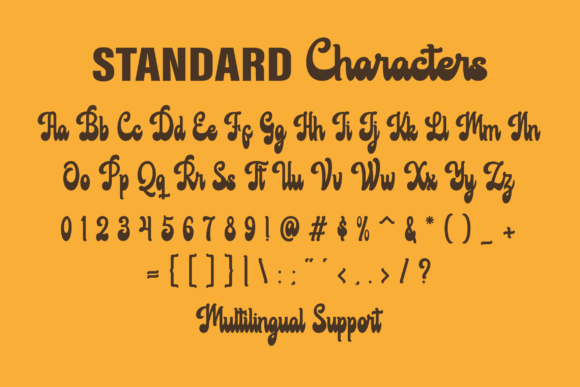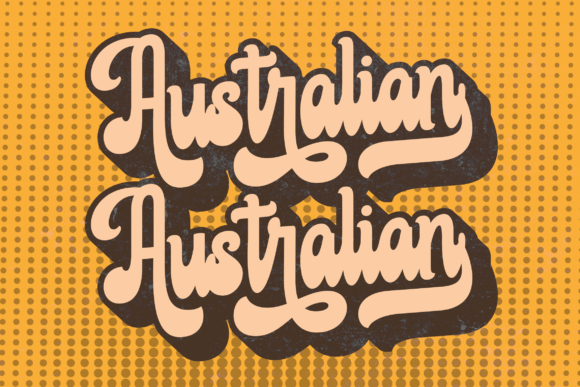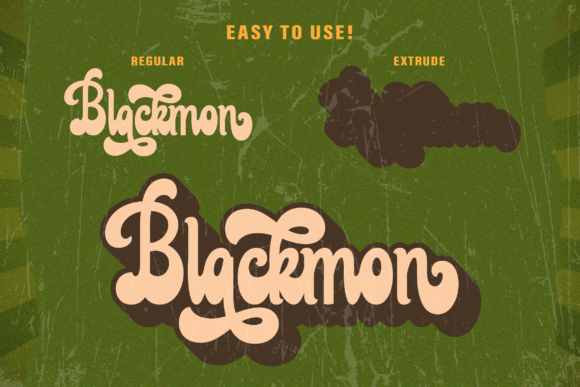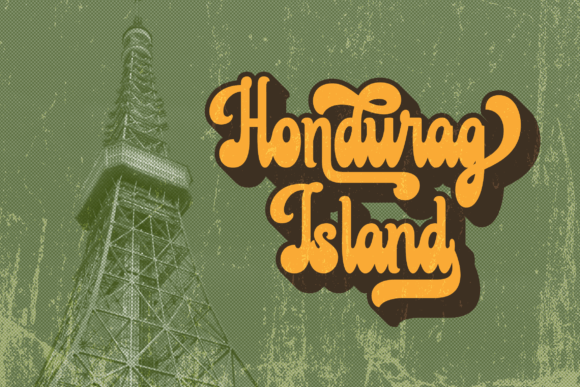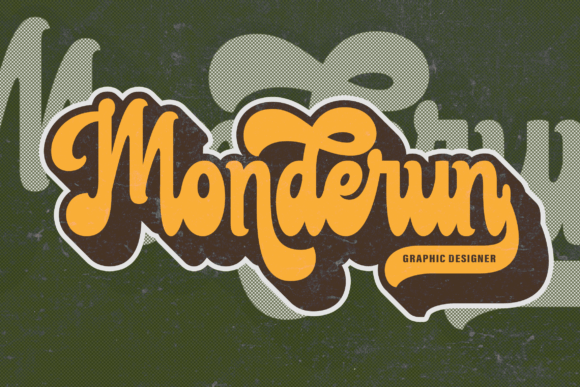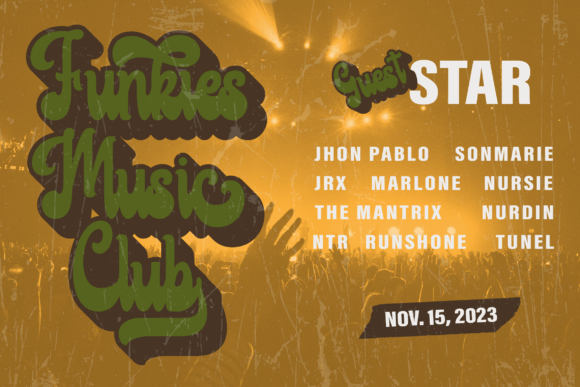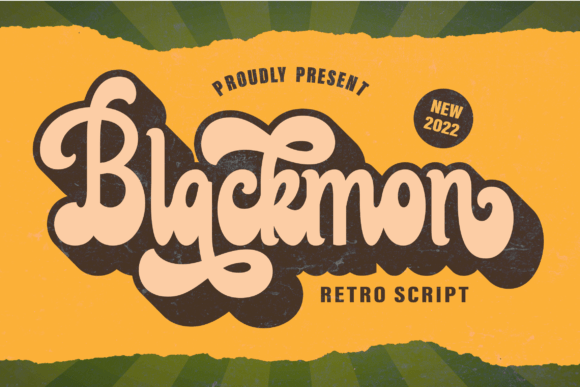
Introducing Blackmon Font: A Retro Bold Script Font
Are you looking for a font that will transport you back to the fabulous era of the 60s-80s? Look no further than the Blackmon Font! This retro, bold script font is perfect for designers and crafters who want to add a touch of nostalgia to their projects. In this article, we’ll dive into the features and benefits of the Blackmon Font, and explore how you can use it to create stunning designs.
A Blast from the Past
The Blackmon Font is a retro-style font that is reminiscent of the classic scripts from the 1960s to the 1980s. Its bold and playful design makes it perfect for creating eye-catching headlines, logos, and titles. The font has an extruded version, which allows you to create a retro effect with ease. This feature is especially useful for designers who want to add a 3D effect to their designs.
Versatile and Multifaceted
The Blackmon Font is incredibly versatile and can be used for a wide range of design projects. Whether you’re creating logos, invitations, labels, magazines, books, greeting cards, wedding cards, packaging, fashion, make-up, stationery, novels, or other advertising materials, this font is perfect for the job. Its bold and playful design makes it suitable for both digital and print projects.
One of the best features of the Blackmon Font is that it’s PUA (Private Use Area) encoded. This means that you can access all of the glyphs and swashes with ease. PUA encoding allows you to access the font’s alternate characters, ligatures, and ornaments, making it easy to create unique and creative designs.
The Blackmon Font is a dream come true for designers and crafters. Whether you’re a professional designer or a hobbyist, this font is perfect for anyone who wants to create stunning designs with a retro twist. The font’s ease of use and versatility make it suitable for designers of all skill levels.
Tips and Tricks for Using Blackmon Font
Here are some tips and tricks for getting the most out of the Blackmon Font:
- Use the extruded version to create a retro effect
- Use the glyphs and swashes to create unique and creative designs
- Pair the Blackmon Font with other fonts to create a striking contrast
In conclusion, the Blackmon Font is a fantastic retro-style font that is perfect for designers and crafters who want to add a touch of nostalgia to their projects. Its bold and playful design, versatility, and PUA encoding make it an excellent choice for a wide range of design projects. Whether you’re creating logos, invitations, labels, or other advertising materials, the Blackmon Font is sure to impress.